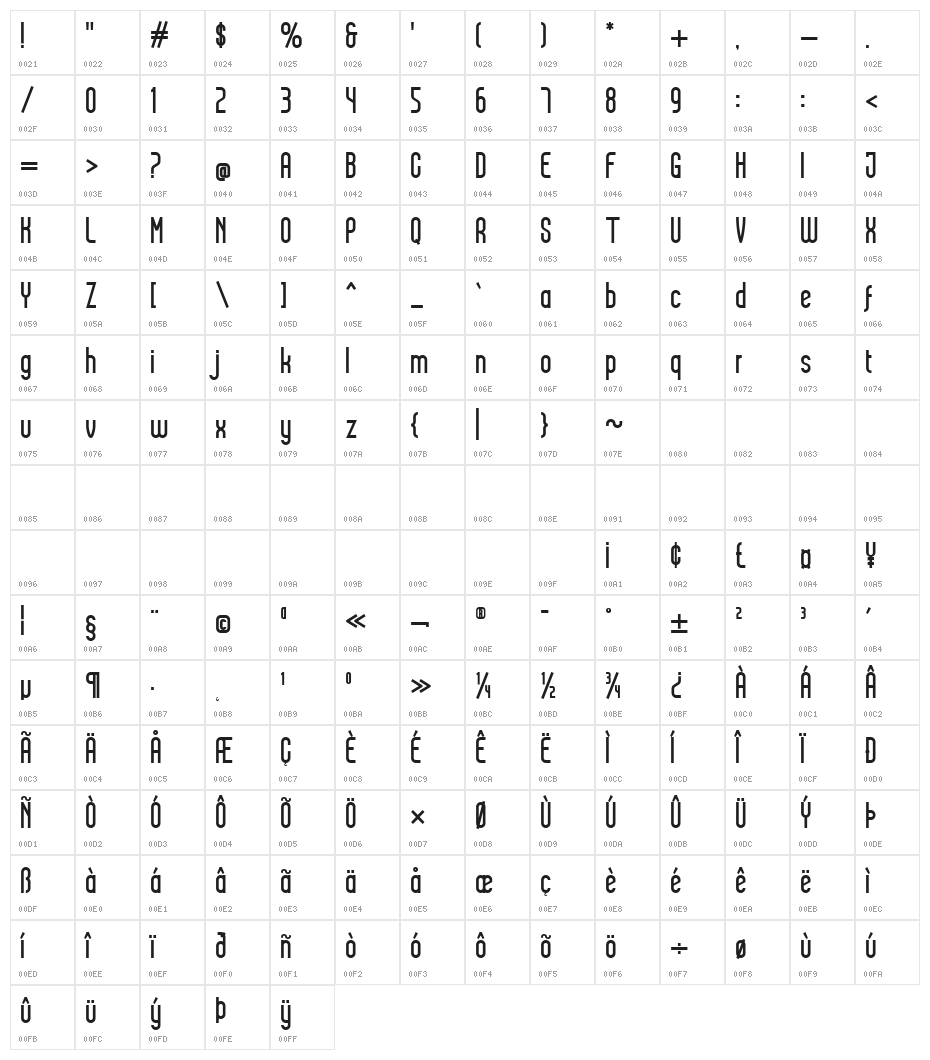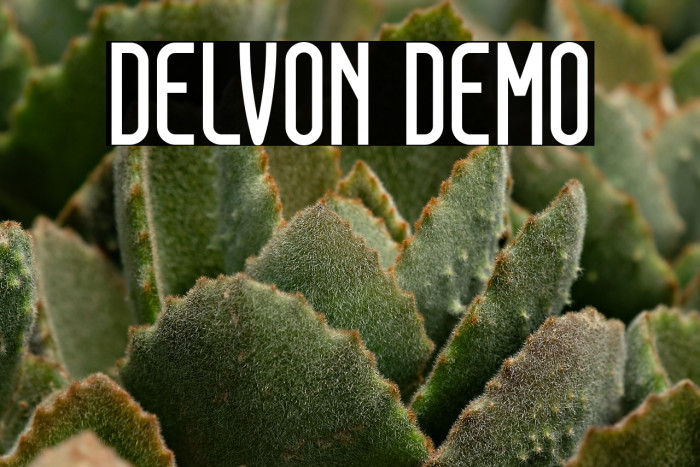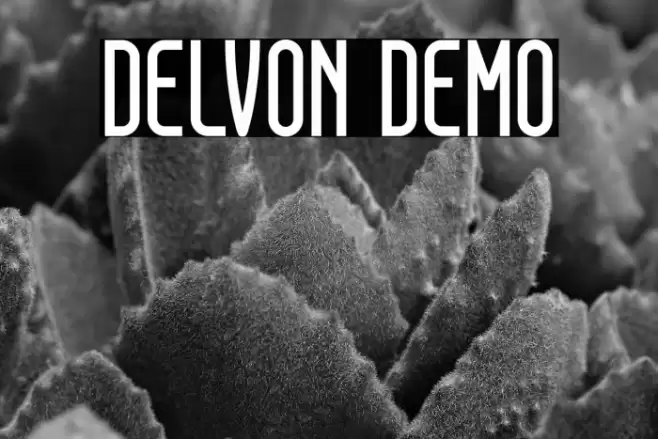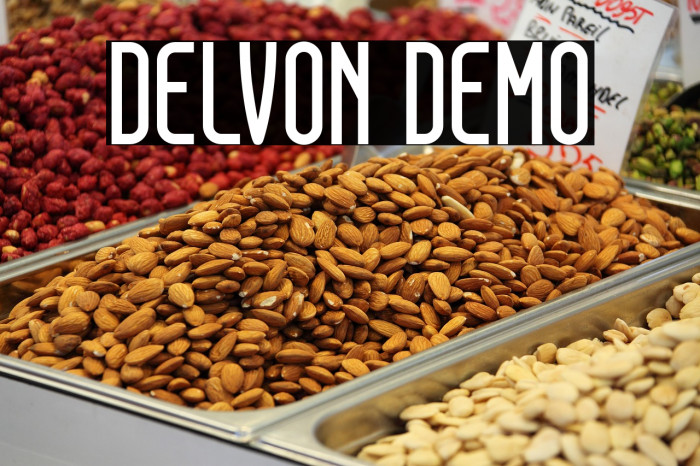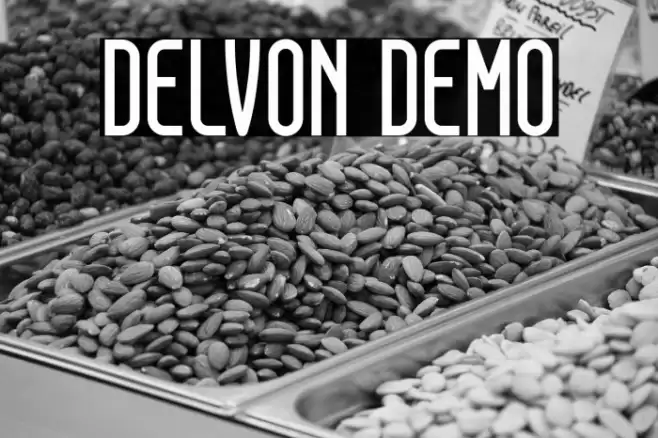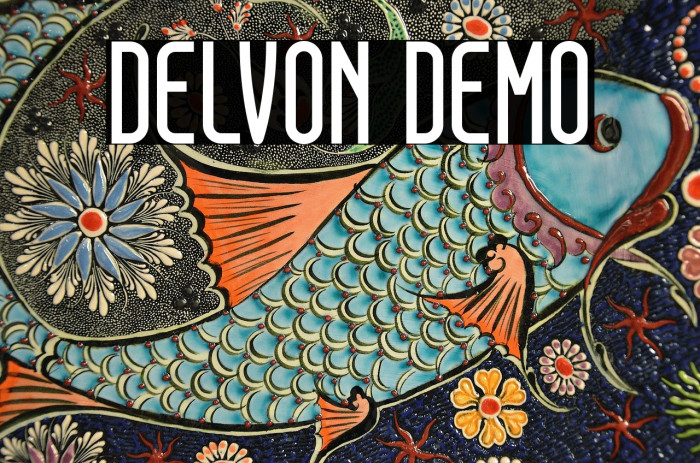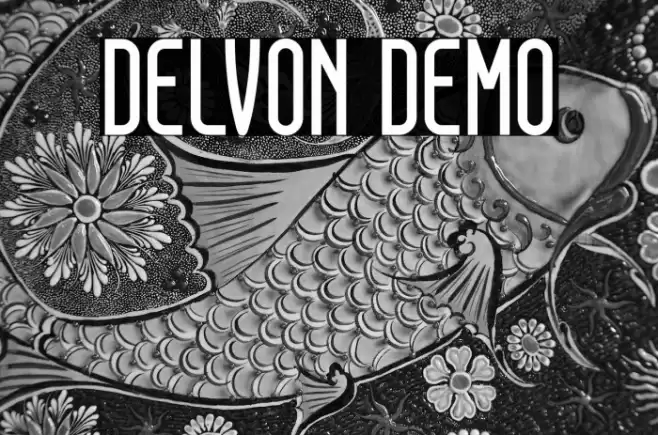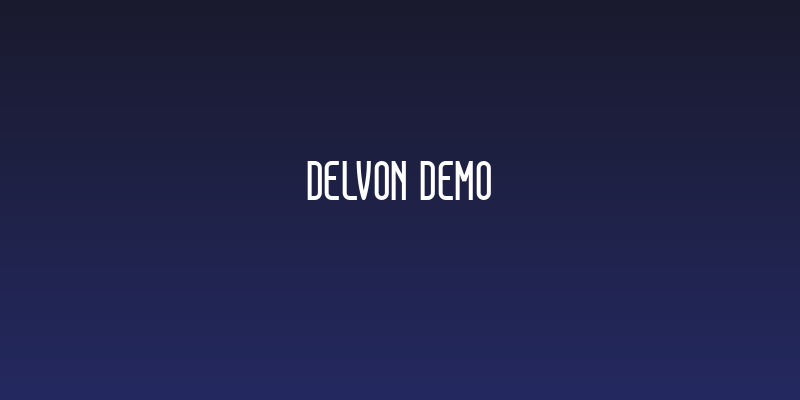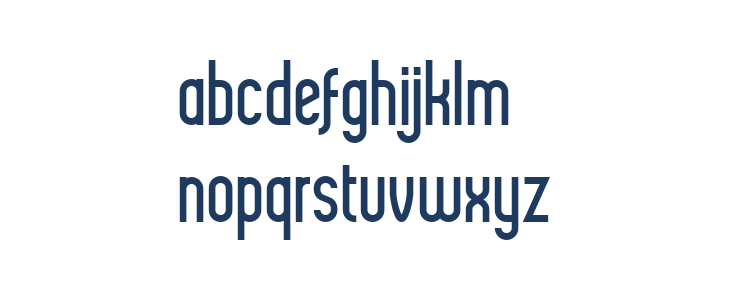
DELVON DEMO Font
DELVON DEMO Description
This font features a modern and sleek design with tall, narrow characters that exhibit a clean and structured appearance. The uppercase letters are uniform in height, while the lowercase letters maintain a consistent baseline, providing a harmonious flow. The numerals are distinct and easy to read, complementing the overall geometric style. Special characters are crafted with precision, enhancing the font's versatility. The design is minimalistic yet impactful, making it suitable for various applications where clarity and style are paramount.
| Proposed Projects | Ideal for branding, advertising, headlines, and digital media projects that require a contemporary and stylish look. |